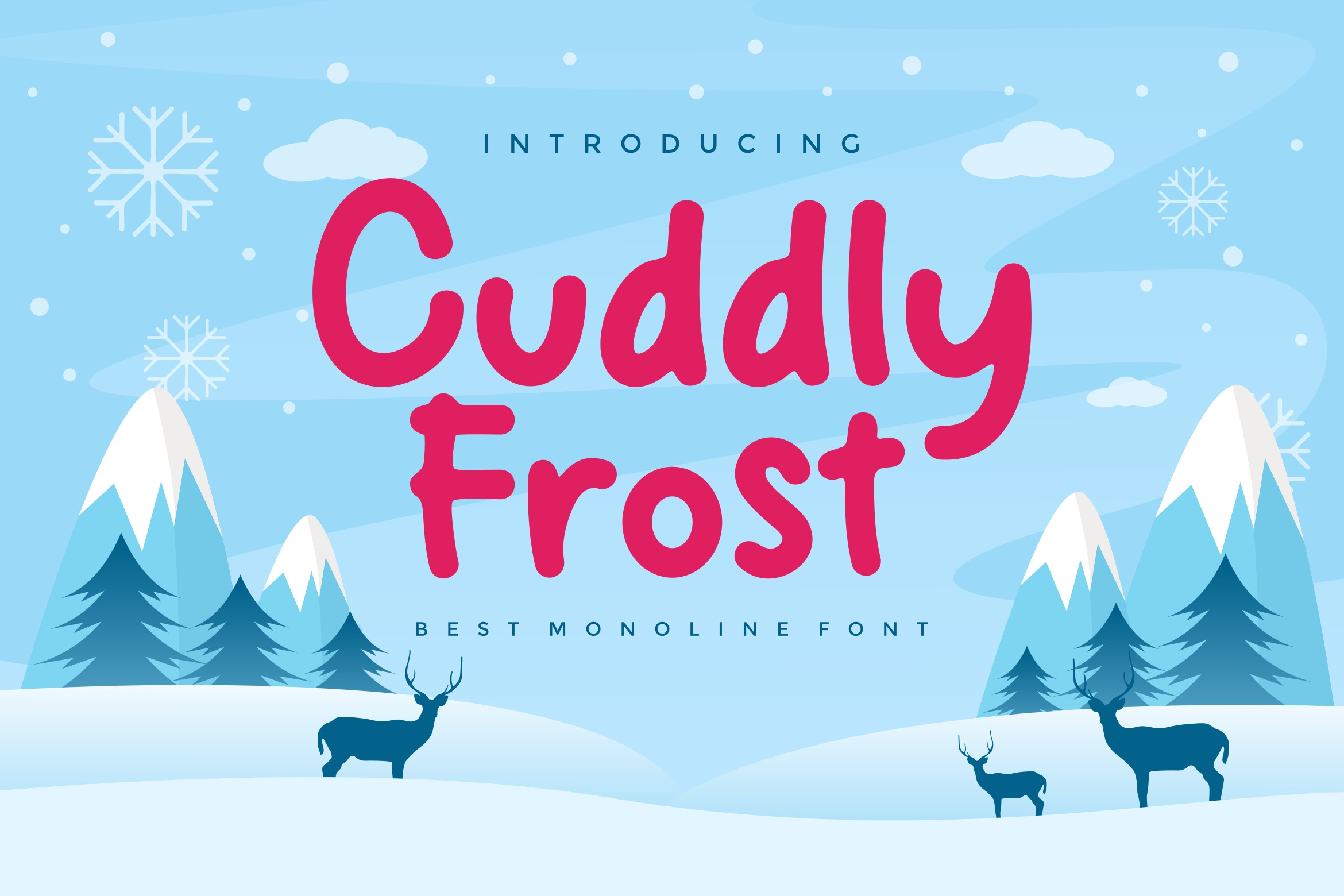
Cuddly Frost Modern Monoline Font
Introducing our new product Cuddly Frost - Modern Font
Cuddly Frost is a bold, modern display font with playful flair, ideal for attention-grabbing headlines, logos, and diverse design projects. Versatile and readable in both digital and print, Cuddly Frost adds a dynamic touch to your message.